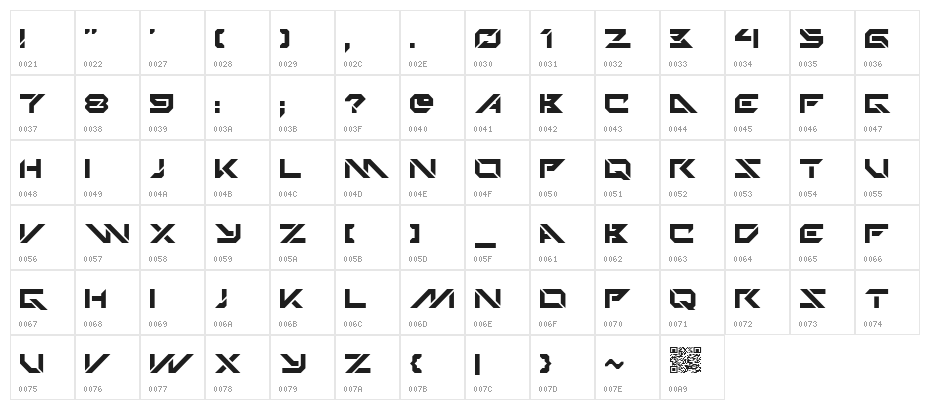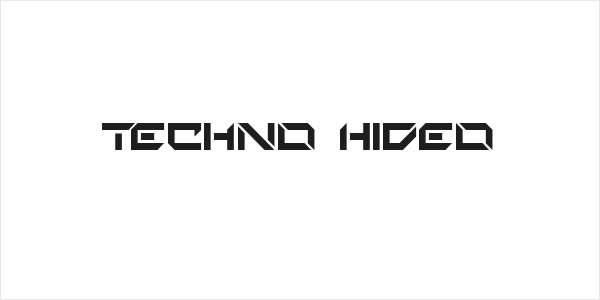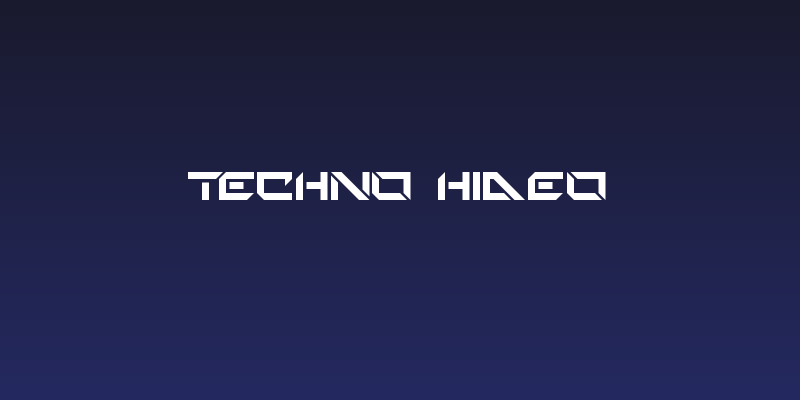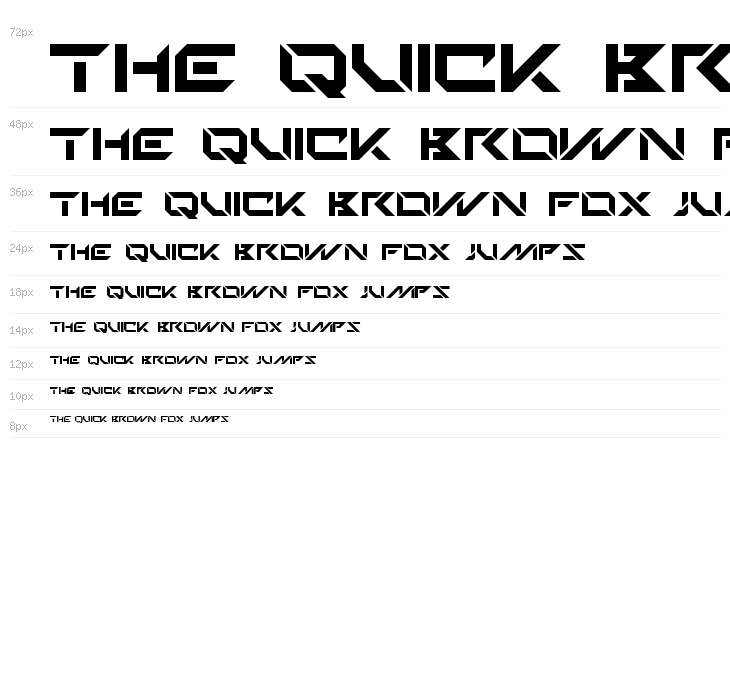
Techno Hideo Font
Techno Hideo Description
This font features a bold, futuristic design with sharp angles and geometric shapes. Each character is constructed with a series of straight lines and acute angles, giving it a distinctly modern and technological appearance. The uppercase and lowercase letters maintain a consistent style, emphasizing symmetry and precision. Numbers and special characters follow the same design principles, ensuring uniformity across the font. The overall look is dynamic and edgy, suitable for projects that require a high-tech or avant-garde aesthetic.
| Proposed Projects | Ideal for technology branding, sci-fi movie posters, video game titles, and digital media. |